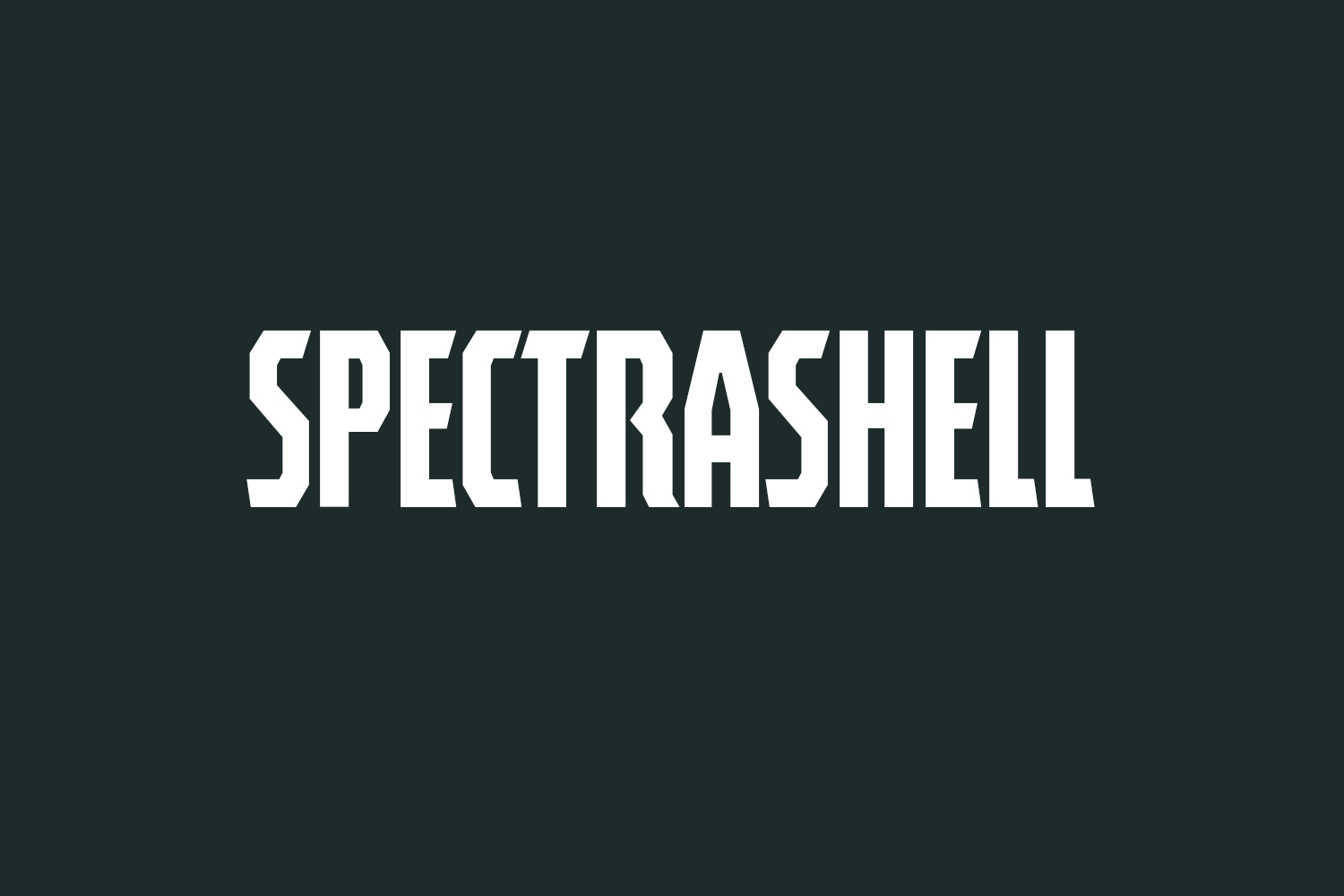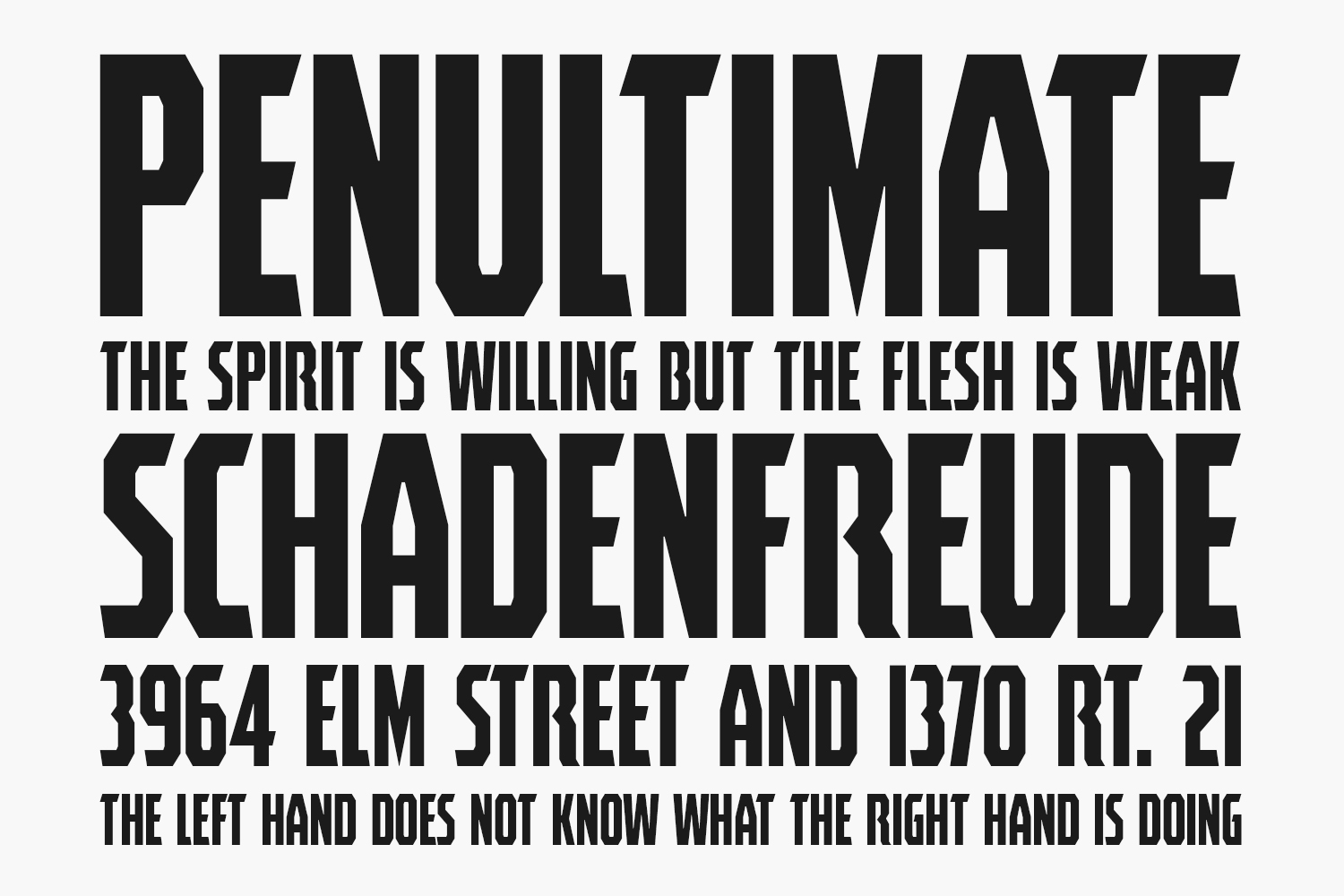
Spectrashell Free Font is a compact headline crammer-heavy capitals designed for maximum impact with sharp angles that are impossible to ignore. Spectrashell Free Font began as a logotype for a brand of rugged, hard-shell, waterproof passport cases. The logo was required to fit tightly inside a metal stamped hexagonal badge only 20mm wide. The letterforms needed clear, obvious cuts to compensate for detail lost during the stamping process.